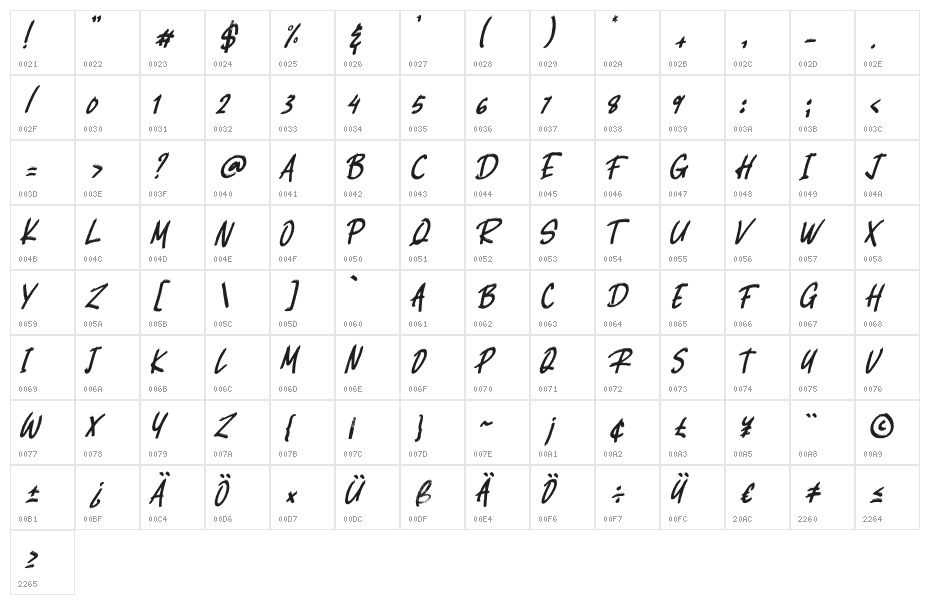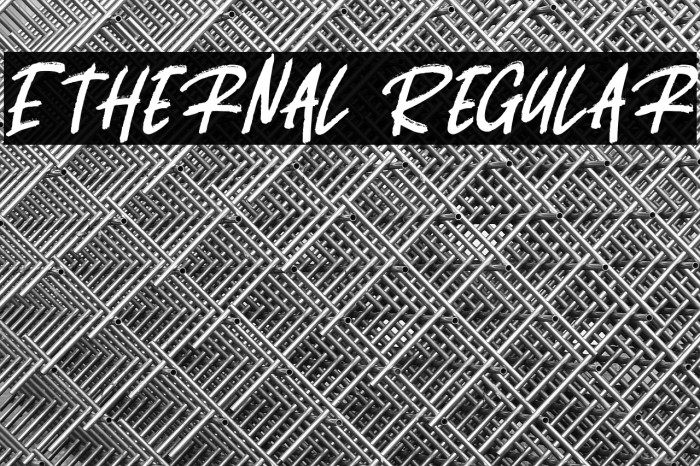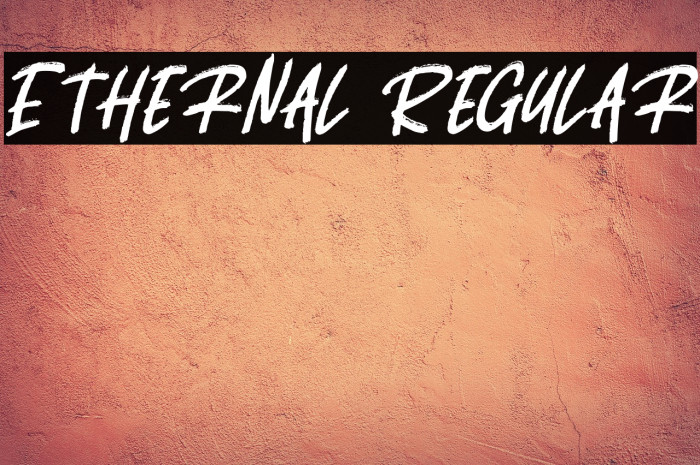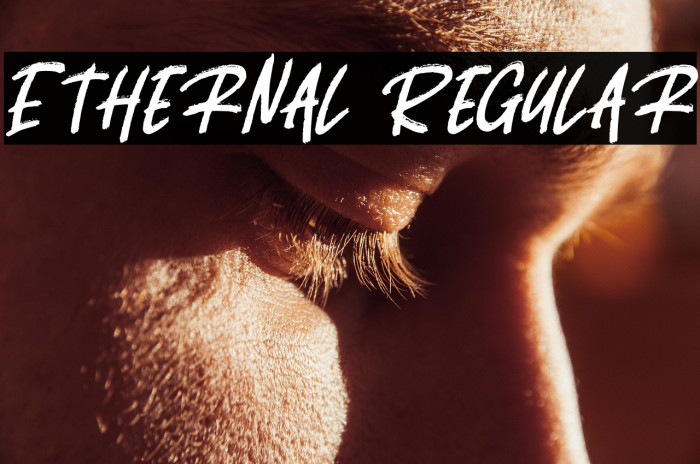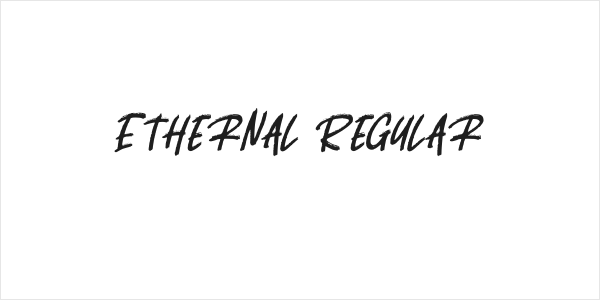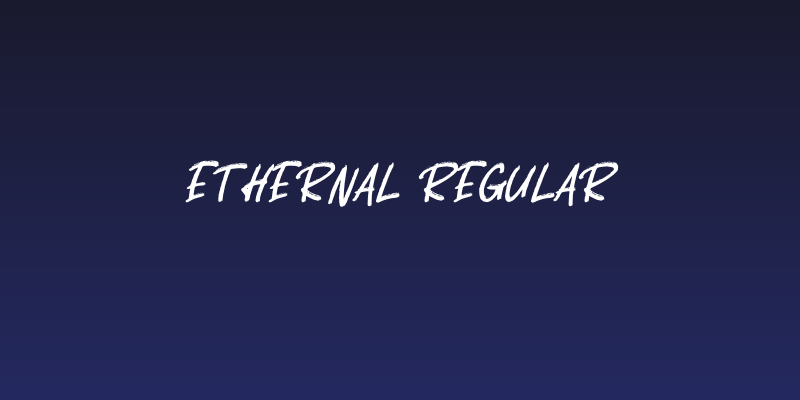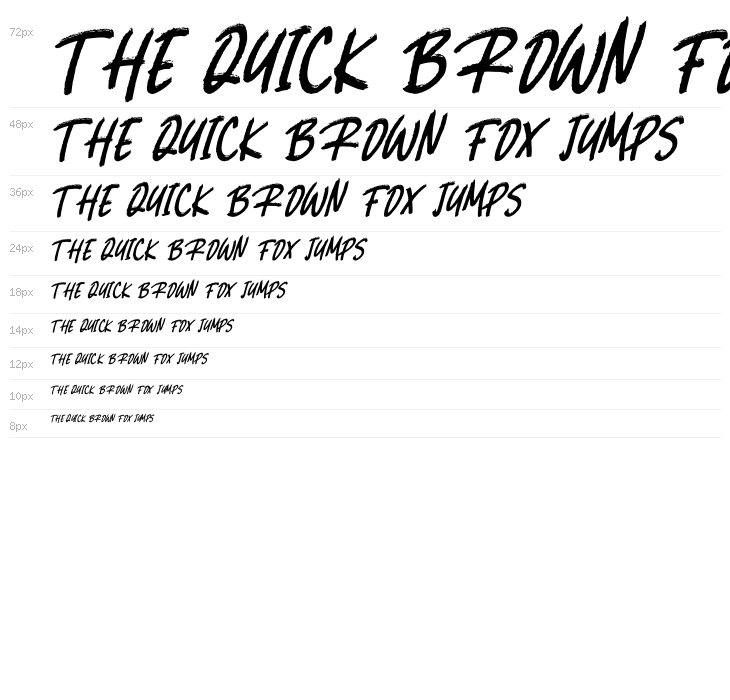
Ethernal Regular Font
Ethernal Regular Description
This font exhibits a bold and dynamic handwritten style, characterized by its fluid and energetic strokes. The letters are slightly slanted, giving a sense of motion and spontaneity. The uppercase and lowercase letters maintain a consistent style, with a noticeable emphasis on the brush-like texture that adds a personal touch. The numerals and special characters follow the same aesthetic, ensuring uniformity across all elements. This font's expressive nature makes it ideal for projects that require a personal or artistic flair.